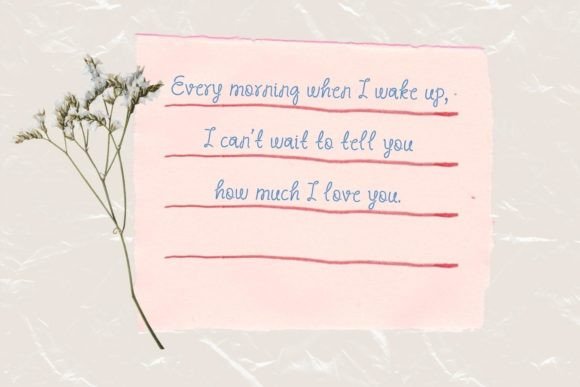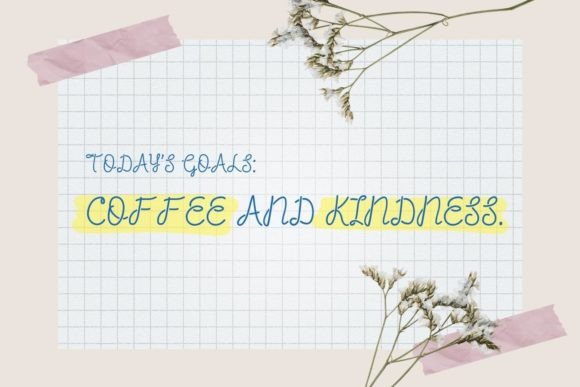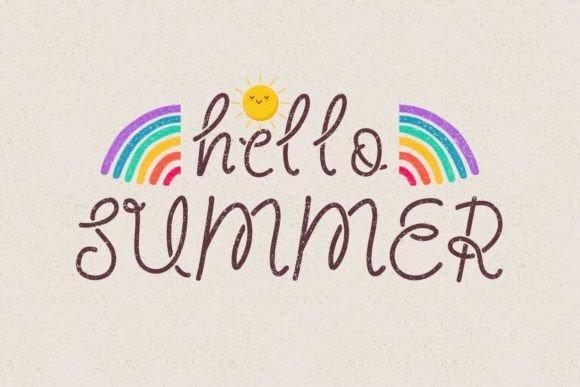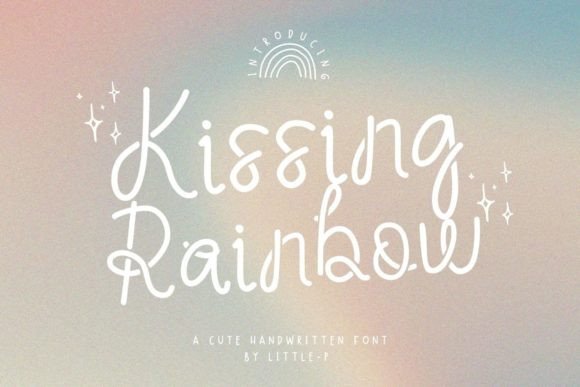
Introduction to Kissing Rainbow Font
Introducing β€œKissing Rainbow” the sweet and tender handwritten font that exudes a stylish and modern simplicity.
With its graceful curves and elegant strokes, Kissing Rainbow is the perfect choice for branding, merchandise, T-shirts, stickers, logos, and packaging This font adds a touch of charm and sophistication to your designs, capturing attention and leaving a lasting impression.
Why Choose Kissing Rainbow Font?
Kissing Rainbow Font offers exceptional quality and versatility, making it a valuable addition to your design toolkit. Whether you’re creating for personal projects or commercial use, Kissing Rainbow Font delivers professional results.